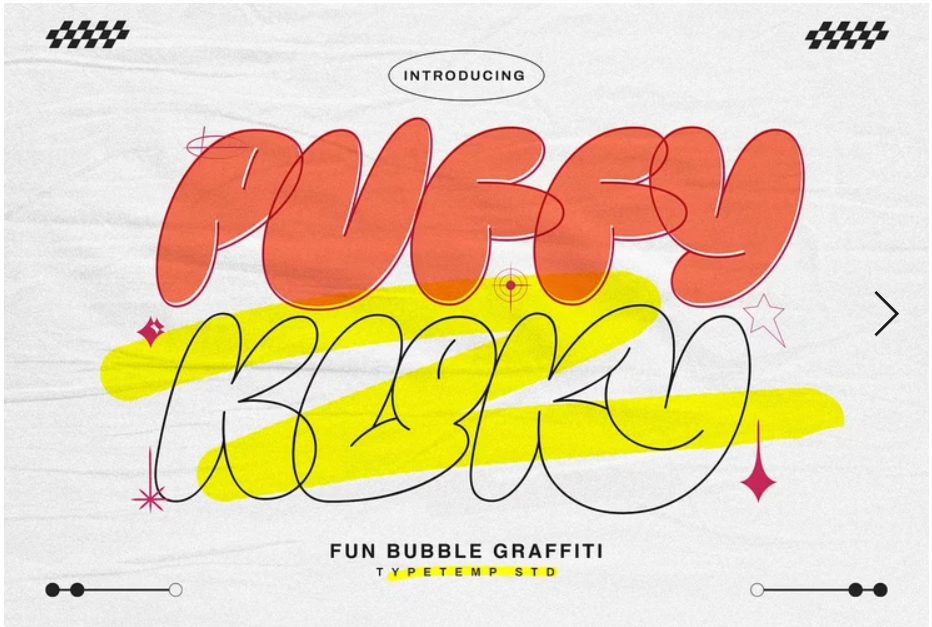
Puffy Kloky – Graffiti Bubble Font for Bold Statements
Unleash your creativity with Puffy Kloky, a bubble graffiti display font that brings a fun, urban touch to your designs. Featuring alternatives and ligatures, Puffy Kloky is perfect for posters, branding, t-shirt graphics, and social media art. Its bold, playful style ensures your creations capture attention and convey a sense of excitement. Available in OTF, TTF, and WOFF formats, this font supports OpenType features for flexible and stunning typographic work.